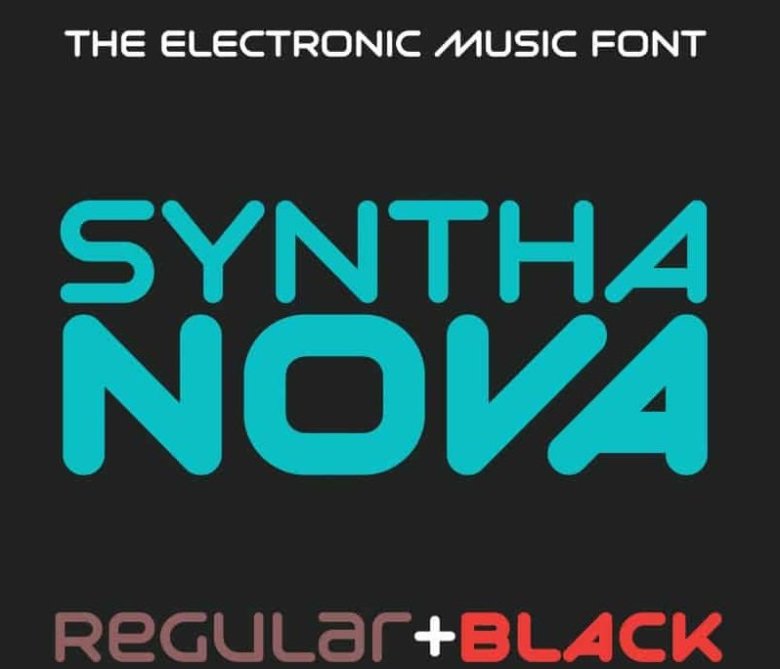
Syntha Nova Display Font
Hi Everyone! Introducing Syntha Nova Font is a display font that has a classic, feminine and elegant style. very suitable for wedding invitations, branding and other creative products.
Syntha Nova Display Font is perfect for branding projects, logo, wedding designs, social media posts, advertisements, product packaging, tshirt design, product designs, label, photography, watermark, invitation, stationery and any projects.